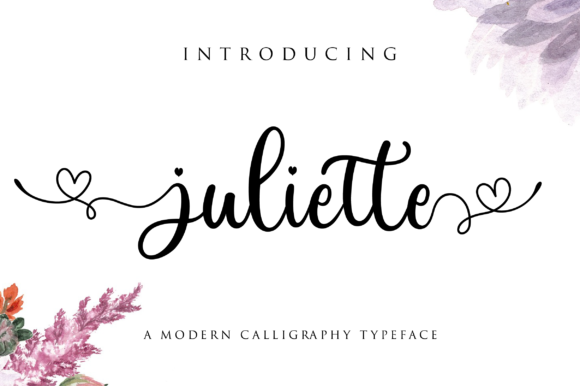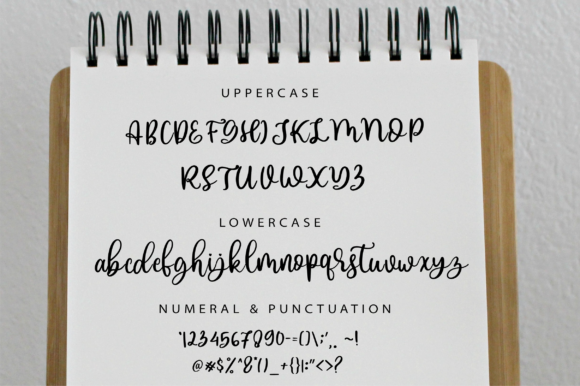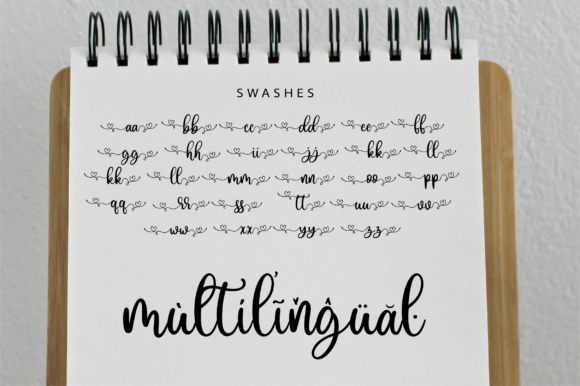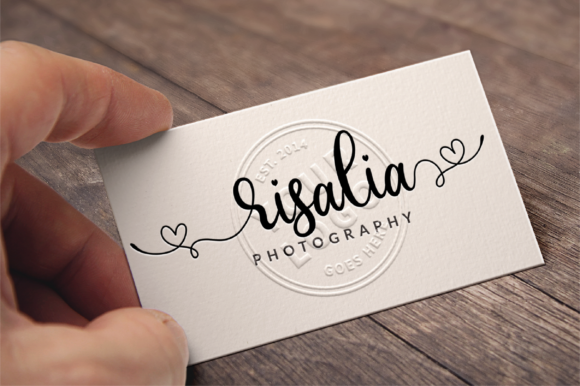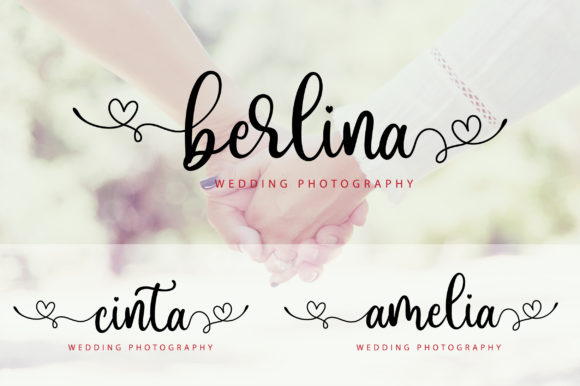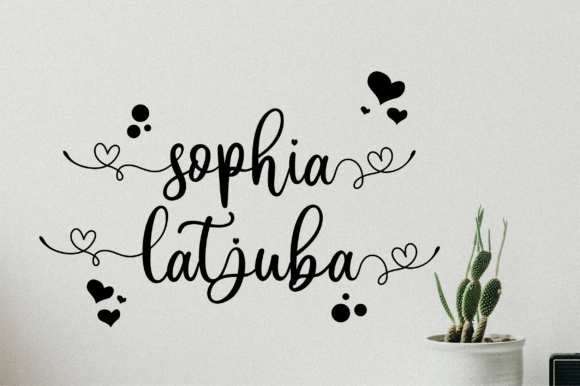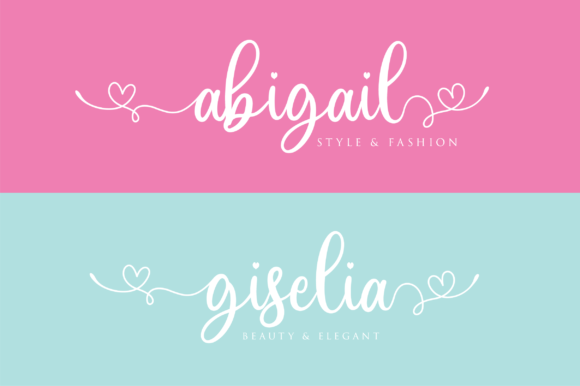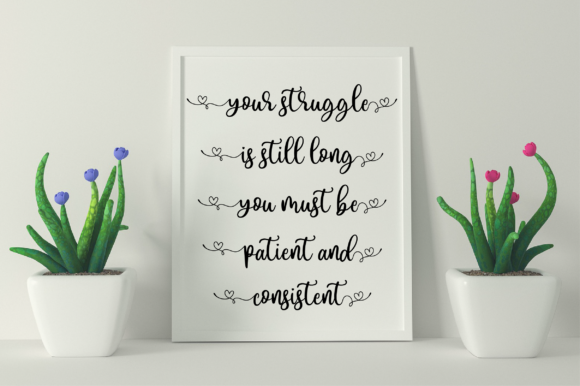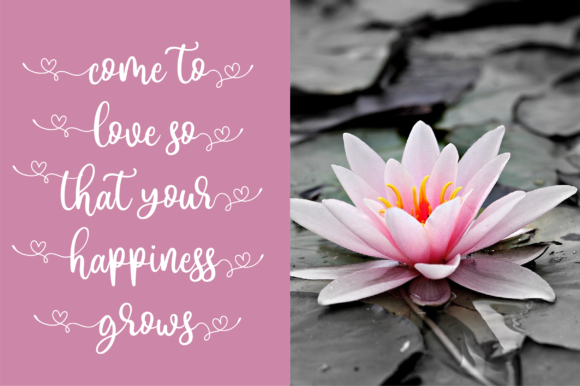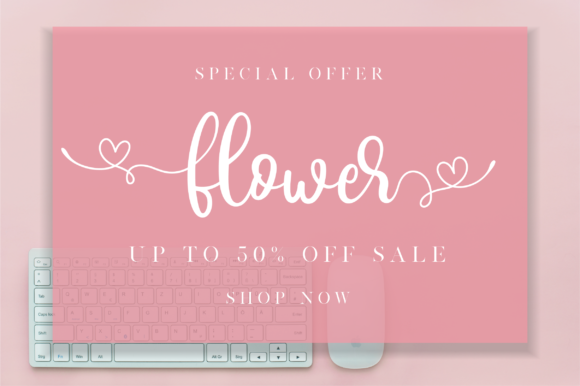
Juliette Font
About Juliette Font
Juliette features gorgeous swashes and alternates that make this fun script a true must-have! Ignite your creativity with its fun and friendly vibe, and experiment with the many font results it allows you to create.